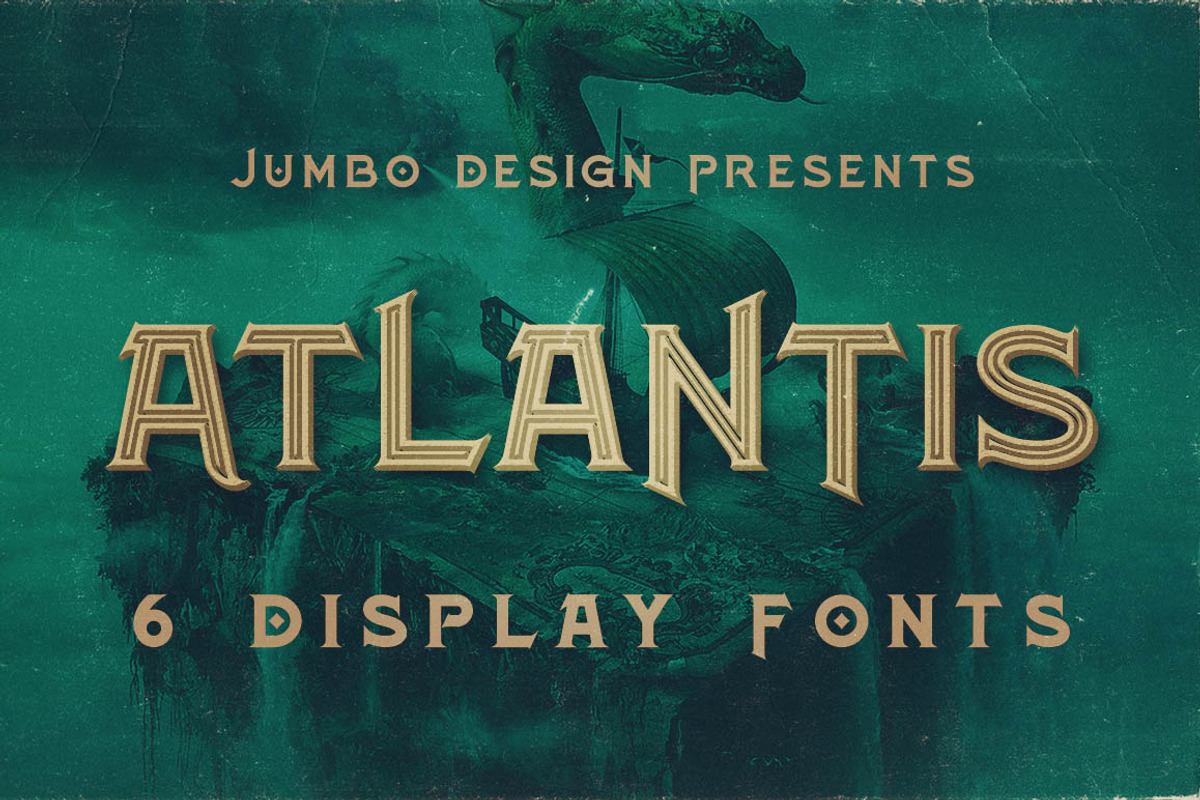
Atlantis - Vintage Style Font Free Download
Atlantis - Vintage Style Font Free Download is a stylish, retro-inspired typeface designed to evoke the charm and elegance of the past. With its bold, intricate letterforms and vintage design elements, this font is perfect for creating nostalgic, timeless designs such as logos, posters, book covers, t-shirt prints, and more.
The Atlantis font combines old-school aesthetics with a modern touch, making it ideal for projects that need a vintage feel while still looking fresh and contemporary. Whether you're creating branding for a classic bar, event posters, or retro product packaging, this font adds personality and character to your designs.
Add a touch of retro flair to your designs with Atlantis - Vintage Style Font Free Download, and create typography that feels both timeless and contemporary. Perfect for designers seeking to bring vintage charm into their creative work.